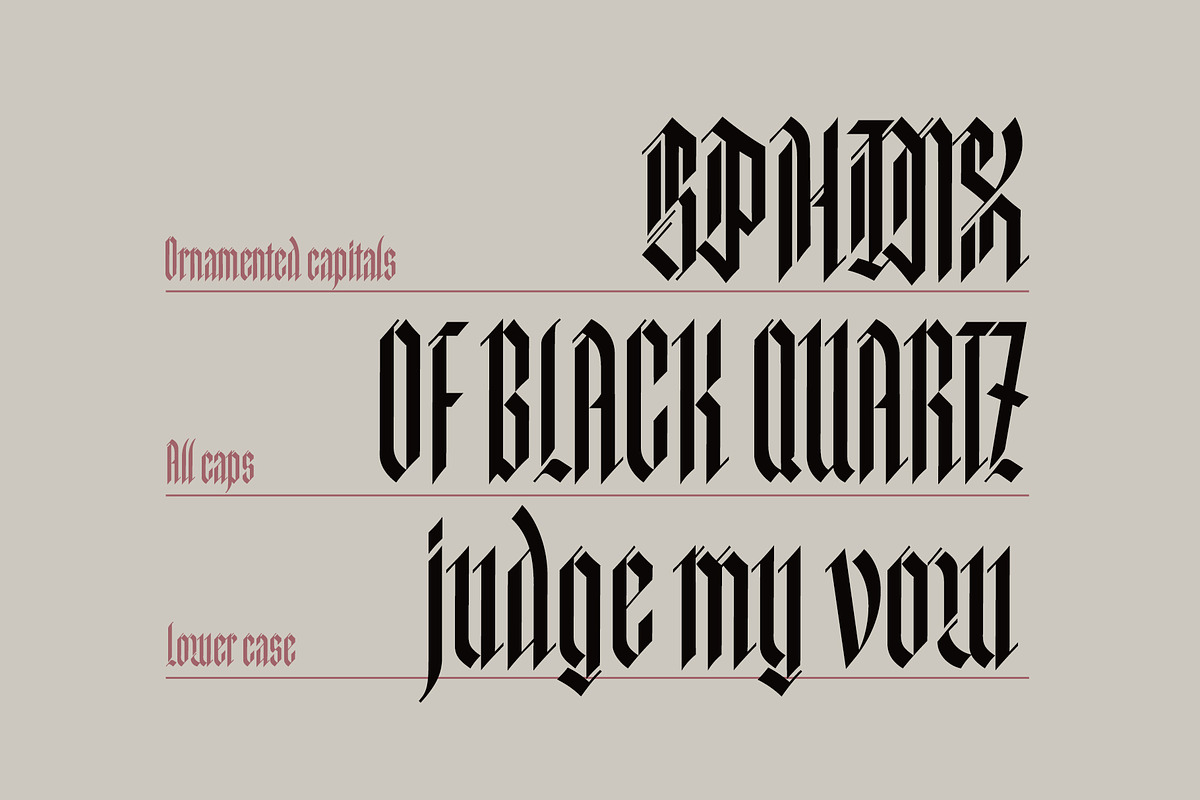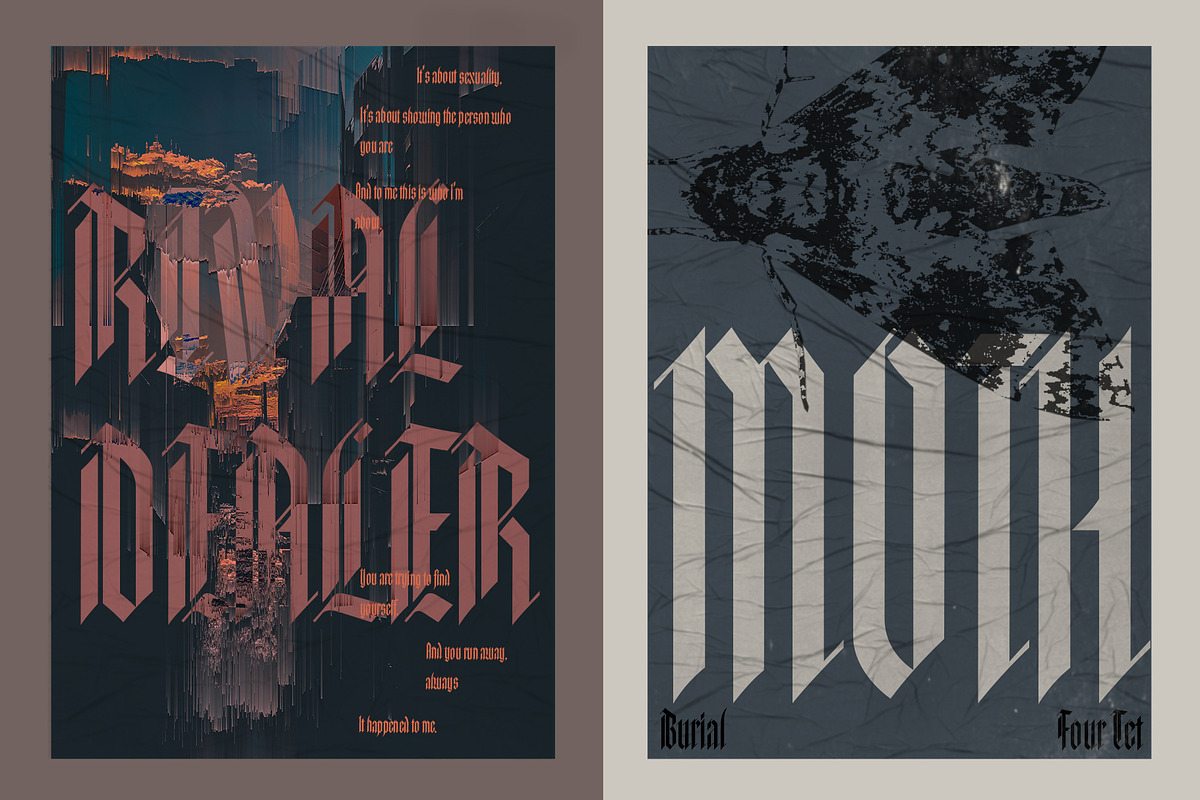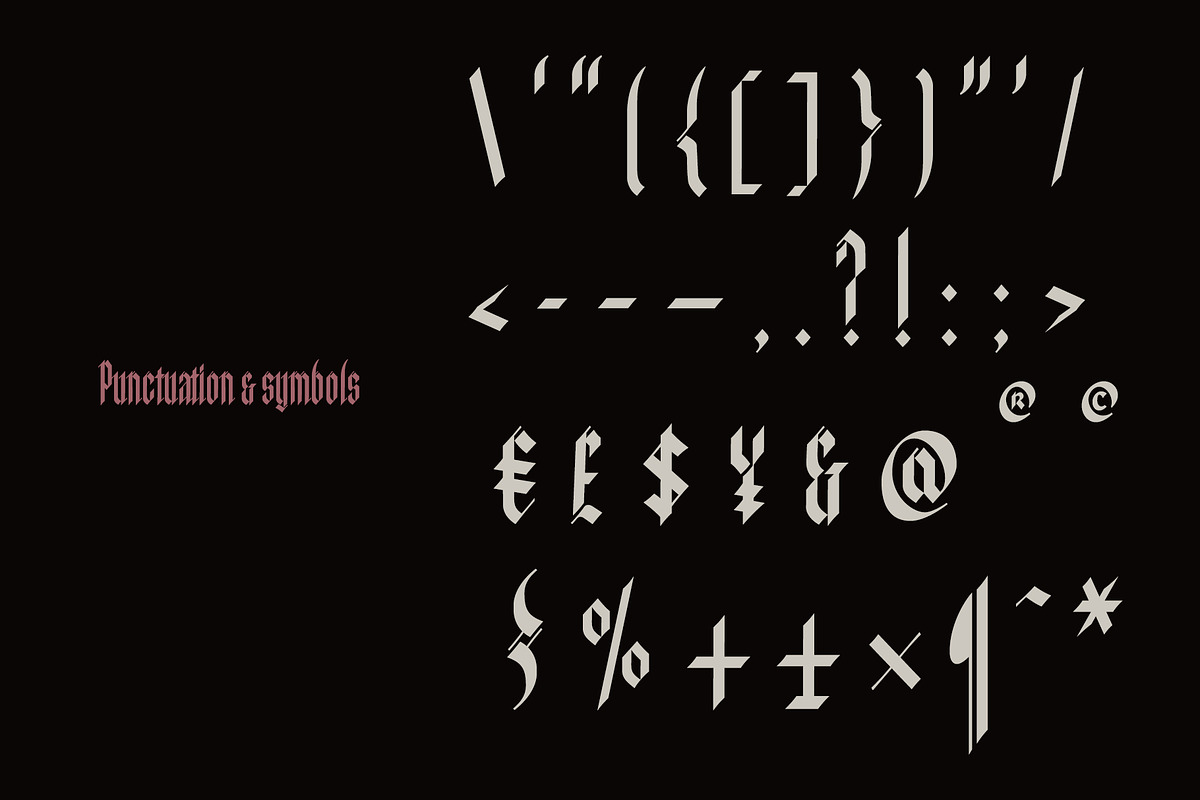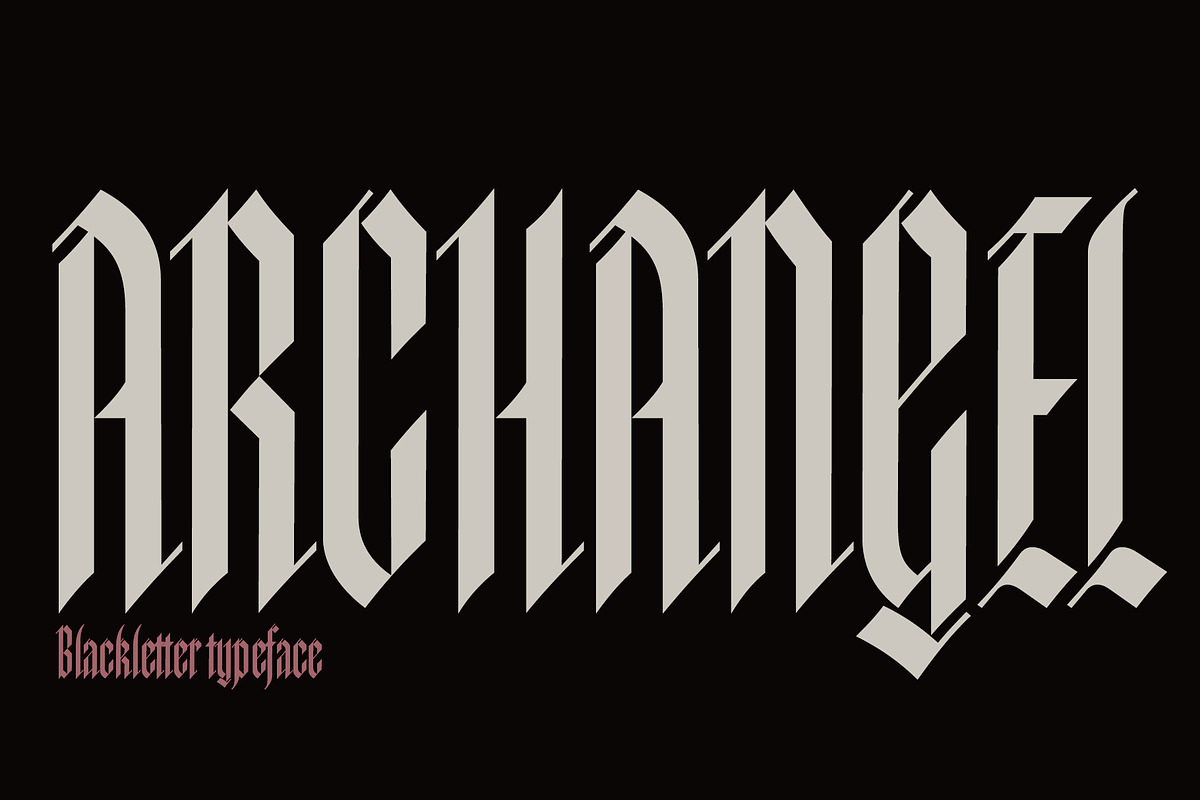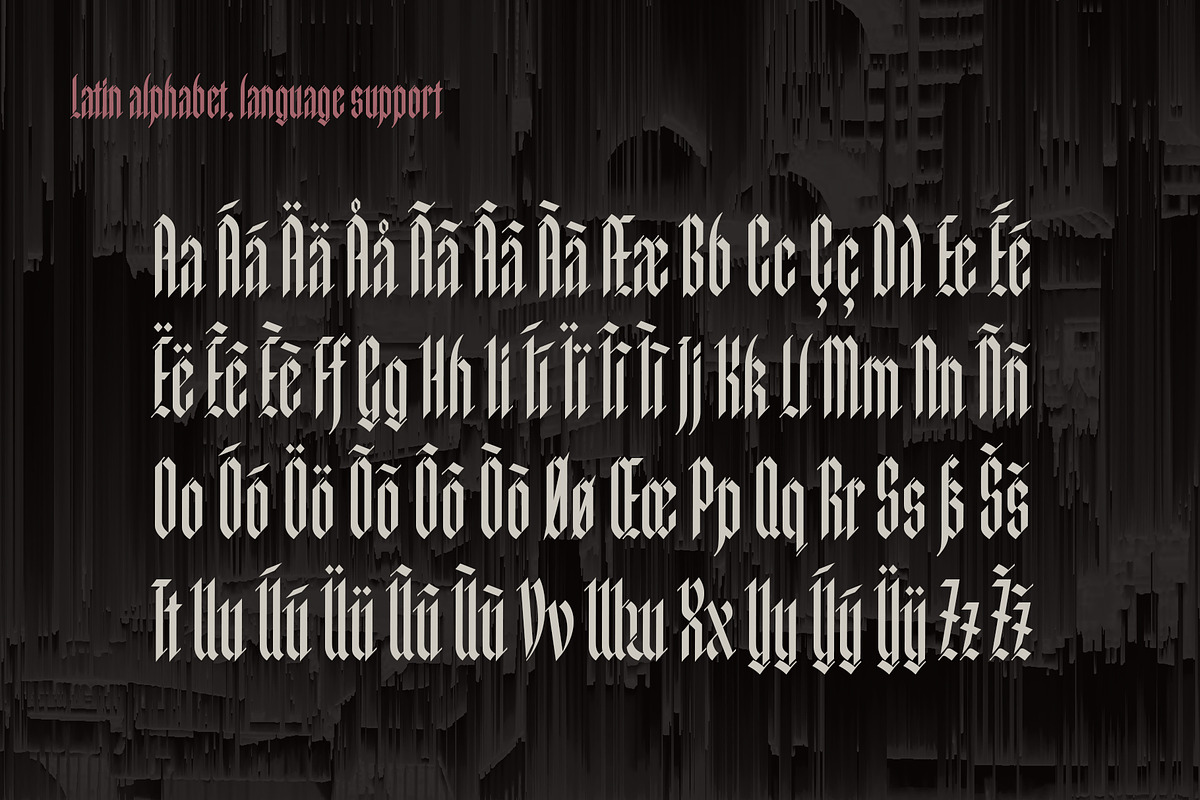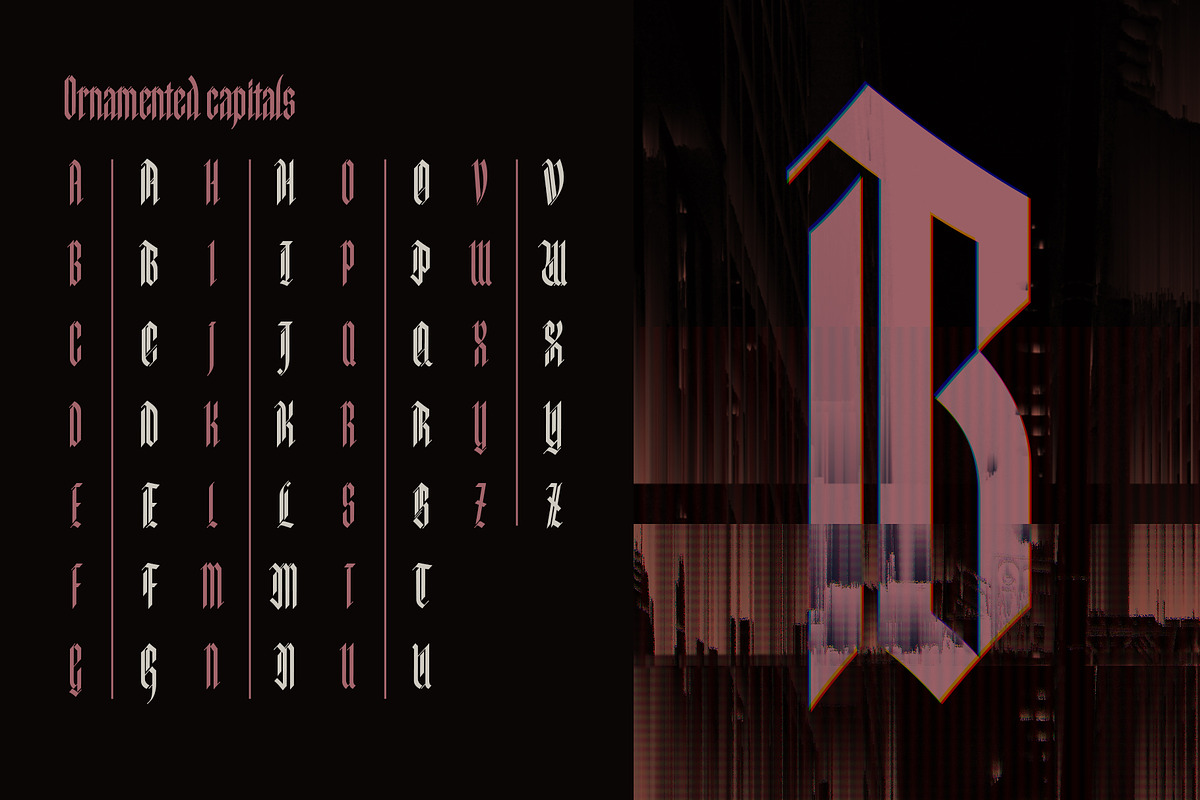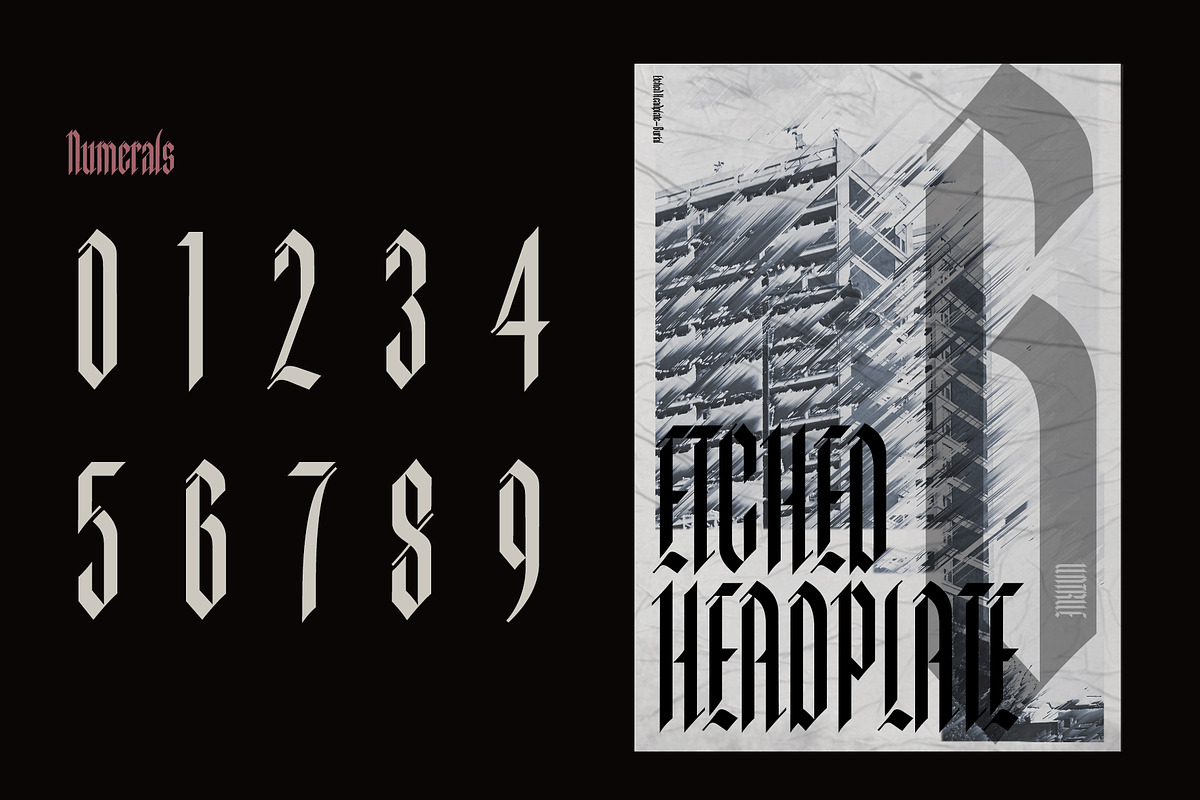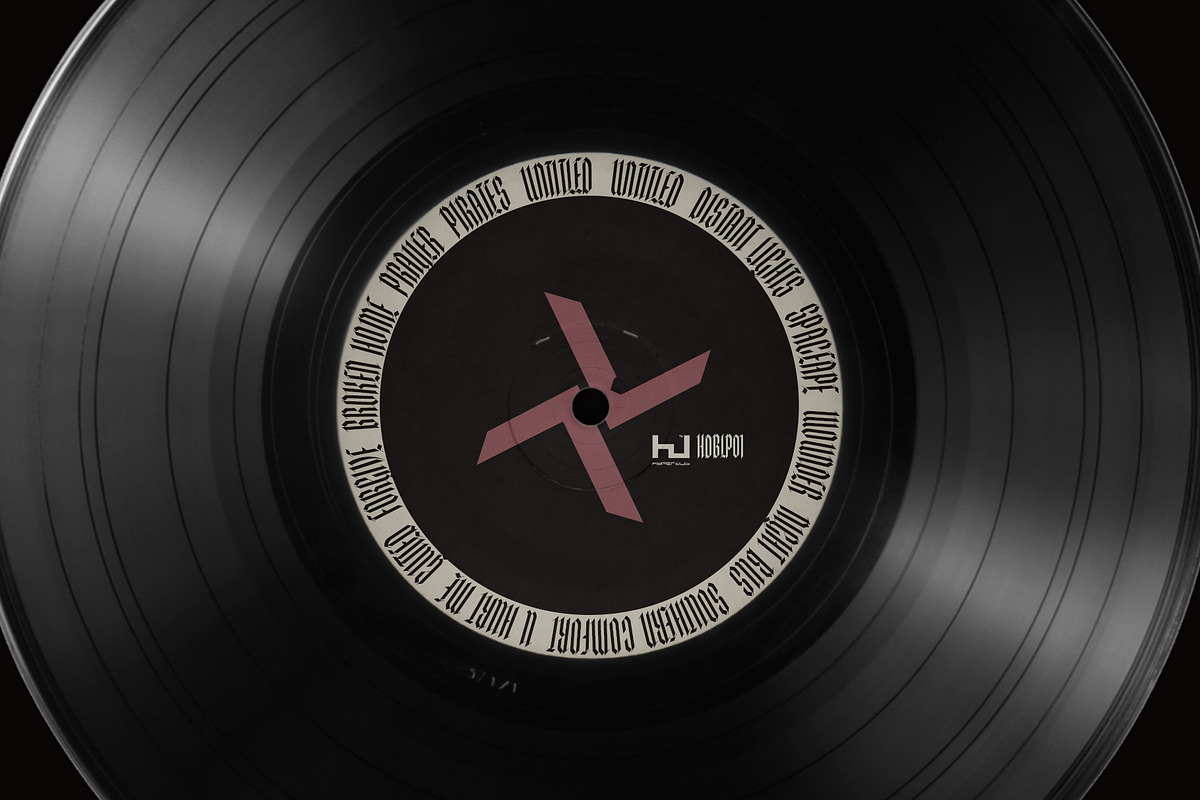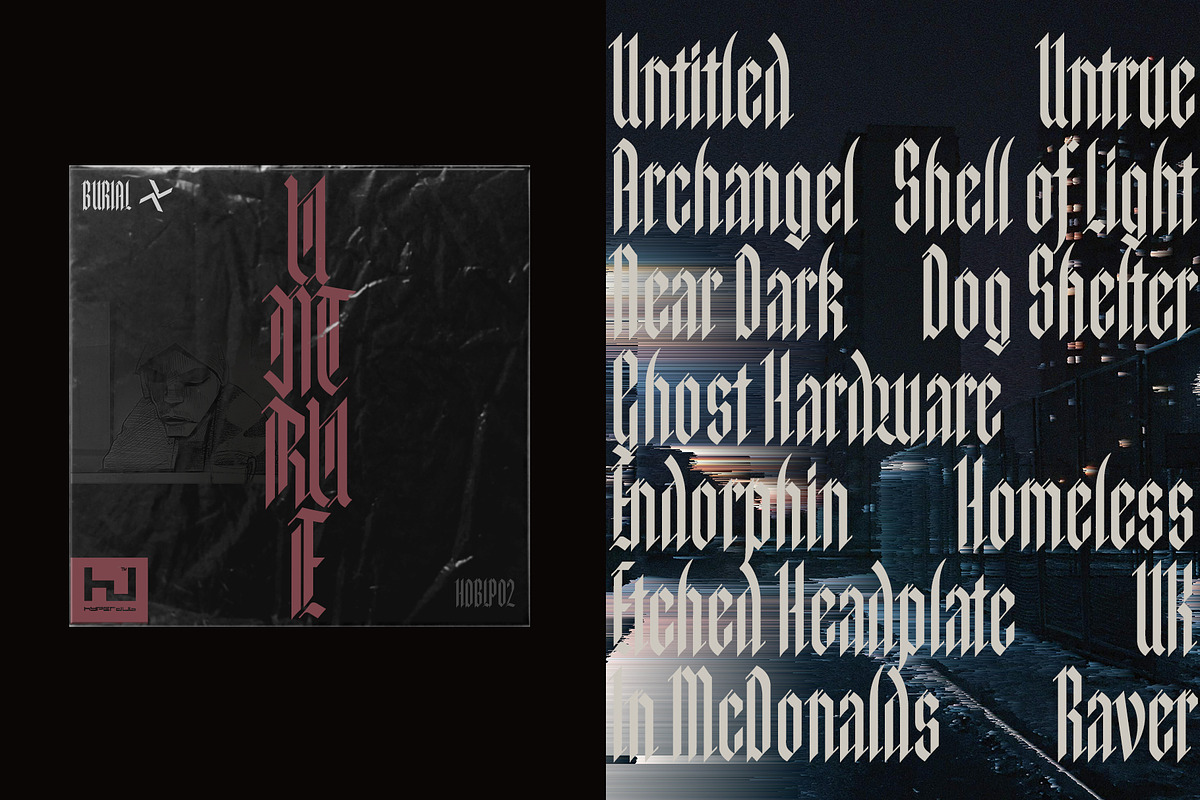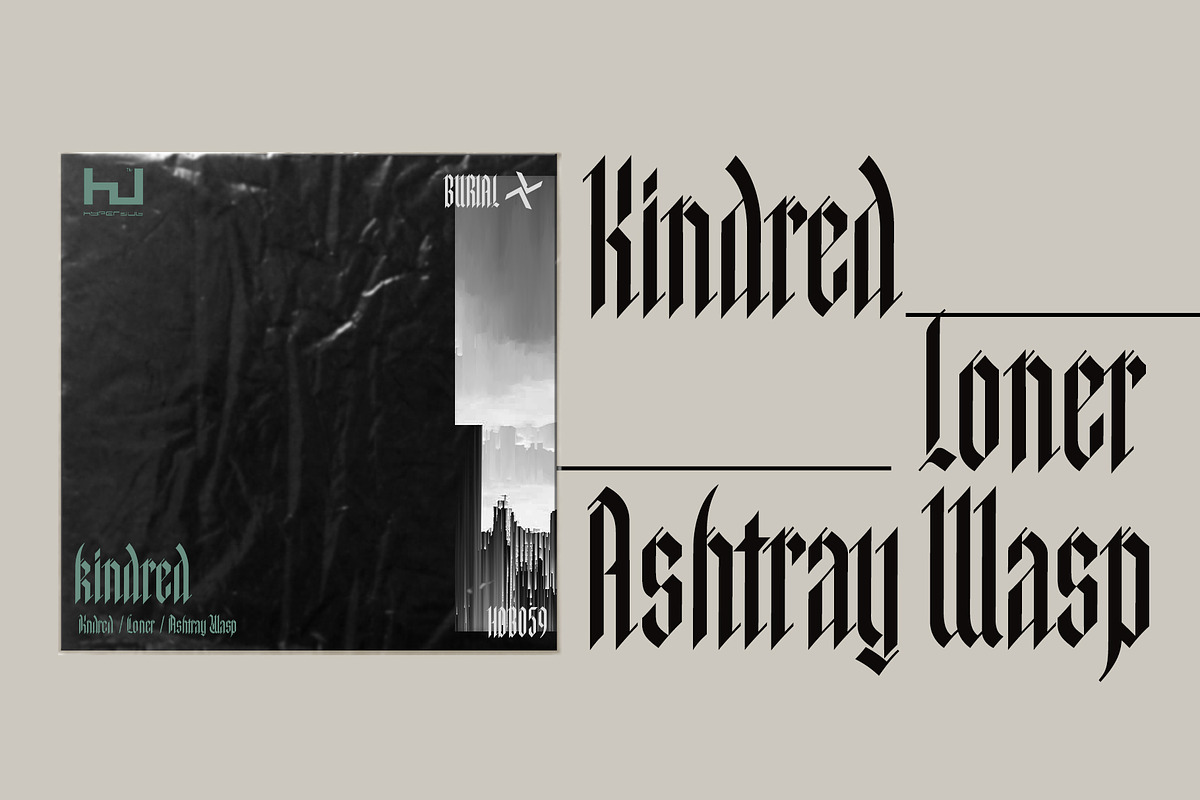
Archangel
Named after a track of the same name, by the electronic music artist, Burial. Archangel is a modern interpretation of blackletter, heavily vertical to reflect cityscapes, and with diagonal hairline elements evoking digital gitching. It features a wide selection of accents, symbols and punctuation, as well as OpenType alternate style capital letters.